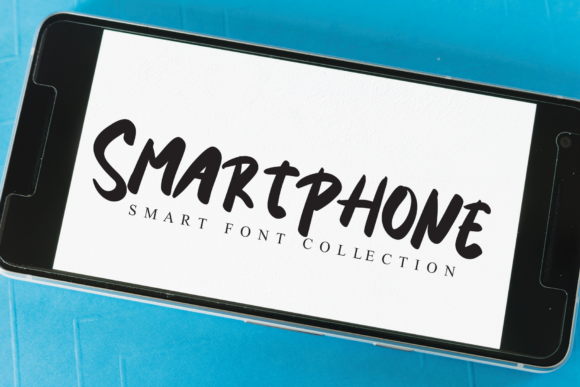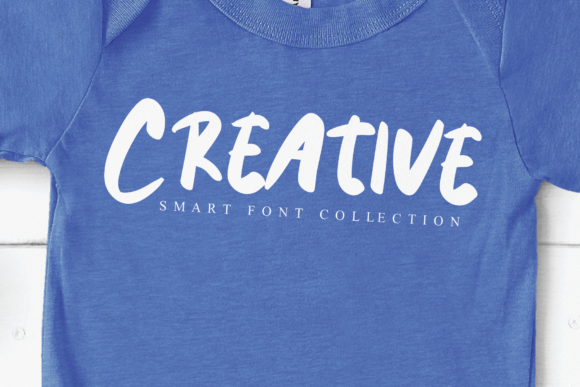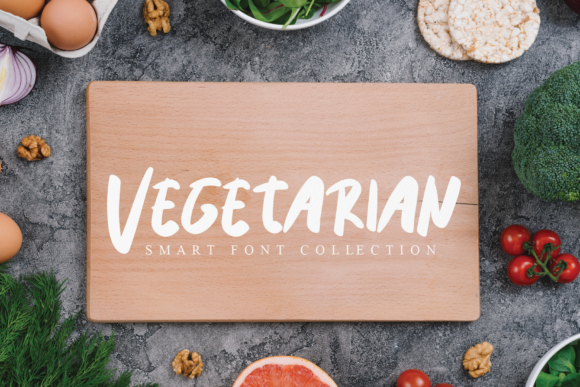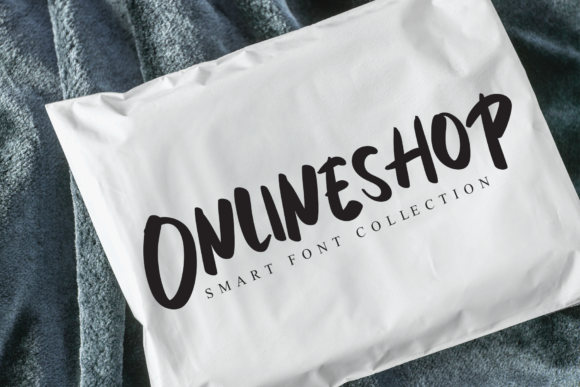
Introduction to Handcraft Handmade Font
Handcraft Handmade is a bold and friendly script font.
Clean and a little bit quirky, this font is the perfect fit for all of your logos, branding, social media, and crafty DIY projects .